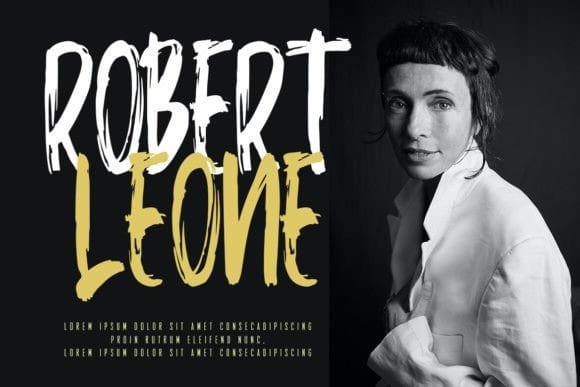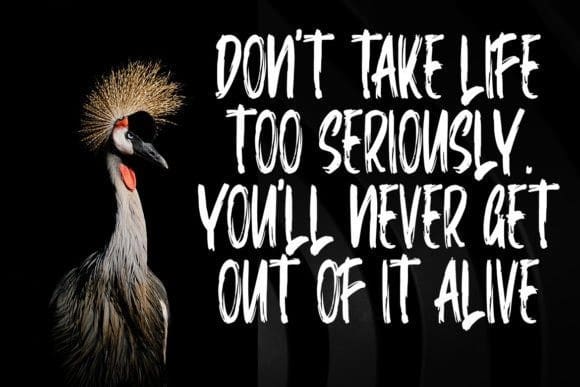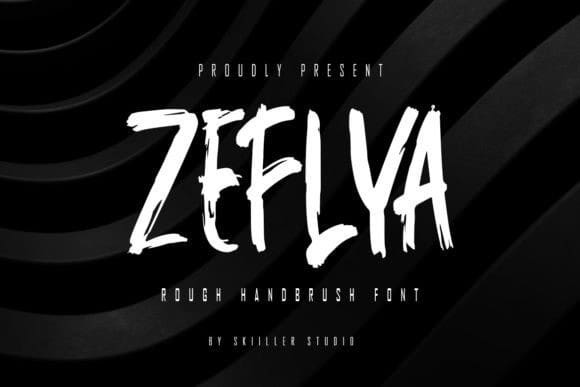
Zeflya Brush Font
Zeflya Brush Font is a modern textured font. It is suitable for food posters, for logos, music covers, clothing, and many cool design projects.